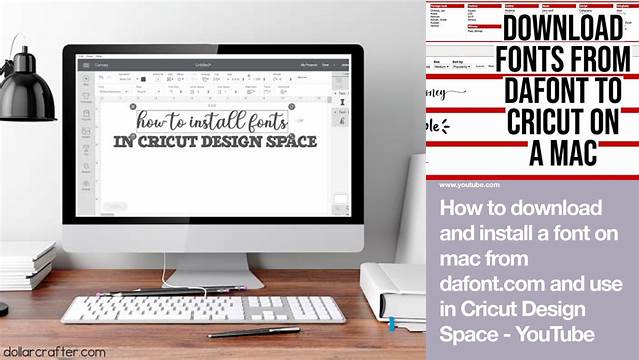
Install DaFont Fonts On Cricut Design Space (Mac)
Hey crafters! Want to spice up your Cricut projects with some awesome new fonts? If you're a Mac user and love browsing DaFont for unique typefaces, this guide is for you. We'll walk you through exactly how to download and install fonts from DaFont and get them working seamlessly in Cricut Design Space. No more boring, default fonts – let's get creative!
1. Understanding DaFont and Cricut Design Space Compatibility
Before we dive in, let's make sure we're on the same page. DaFont is a fantastic resource for free and premium fonts, offering a huge variety of styles. Cricut Design Space, on the other hand, is the software you use to design and control your Cricut cutting machine. The key thing to remember is that Cricut Design Space uses the fonts installed on your Mac, not its own built-in library (besides the Cricut Access fonts). So, the goal is to get those DaFont fonts onto your Mac so Cricut Design Space can see them.
Keep in mind: Sometimes, a font might look great on DaFont's preview but not perform perfectly in Cricut Design Space. This is rare but can happen due to font design quirks. If you encounter issues like letters not connecting properly or strange spacing, you might need to adjust the kerning or leading in Design Space or choose a different font.
2. Finding the Perfect Fonts on DaFont for Your Cricut Projects
Okay, let's talk about finding those perfect fonts! DaFont can feel overwhelming with its massive selection, but a few tips can help you narrow down your search. First, use the categories on the left-hand side of the DaFont website. Are you looking for a script font for a wedding invitation? Or a bold, blocky font for a birthday banner? The categories will help you filter the options.
Another great trick is to use the preview text box. Type in the word or phrase you plan to use in your Cricut project. This lets you see exactly how the font will look with your specific text. You can even adjust the preview size to get a better feel for the font's readability.
Don't be afraid to experiment! Download a few different fonts that catch your eye and try them out in Cricut Design Space. You might be surprised by which ones you end up loving. Remember, you can always delete fonts later if you don't need them.
Consider the style of your project. A whimsical font might be perfect for a children's birthday card, but it would look out of place on a professional business logo. Think about the overall aesthetic you're trying to achieve and choose fonts that complement it.
Finally, pay attention to the font's details. Are the letters clean and crisp, or are they rough and textured? Does the font have a lot of decorative flourishes, or is it more minimalist? These details can make a big difference in the final result of your Cricut project.
3. Downloading Fonts from DaFont: A Step-by-Step Guide
Downloading fonts from DaFont is a piece of cake. Here’s the breakdown:
- Head to DaFont.com: Open your favorite web browser and type in dafont.com.
- Browse or Search: Use the categories or the search bar to find a font you like.
- Preview the Font: Type your text into the preview box to see how it looks.
- Download: Click the "Download" button next to the font. The file will usually download as a
.zip
file to your "Downloads" folder (or wherever you've set your downloads to go). - Locate the Downloaded File: Open your "Downloads" folder (usually found in your Finder sidebar).
That's it! The font is now on your Mac, ready for the next step.
4. Installing DaFont Fonts on Your Mac (macOS Ventura and Earlier)
Now, the crucial part – installing the font on your Mac. Here's how it works on macOS Ventura and earlier versions:
- Unzip the File: Double-click the
.zip
file you downloaded from DaFont. This will extract the font file (usually.OTF
or.TTF
) into a new folder. - Open the Font File: Double-click the font file itself. This will open the Font Book application, which is built into macOS.
- Click "Install Font": In the Font Book window, you'll see a preview of the font. Click the "Install Font" button at the bottom.
- Confirm Installation: Your Mac may ask you to confirm the installation with your password. Enter your password if prompted.
30. Mastering Fonts in Cricut Design Space: A Comprehensive Guide
By following these tips and techniques, you can master fonts in Cricut Design Space and create stunning and professional-looking projects. Have fun experimenting with different fonts and finding the perfect ones for your creative vision!